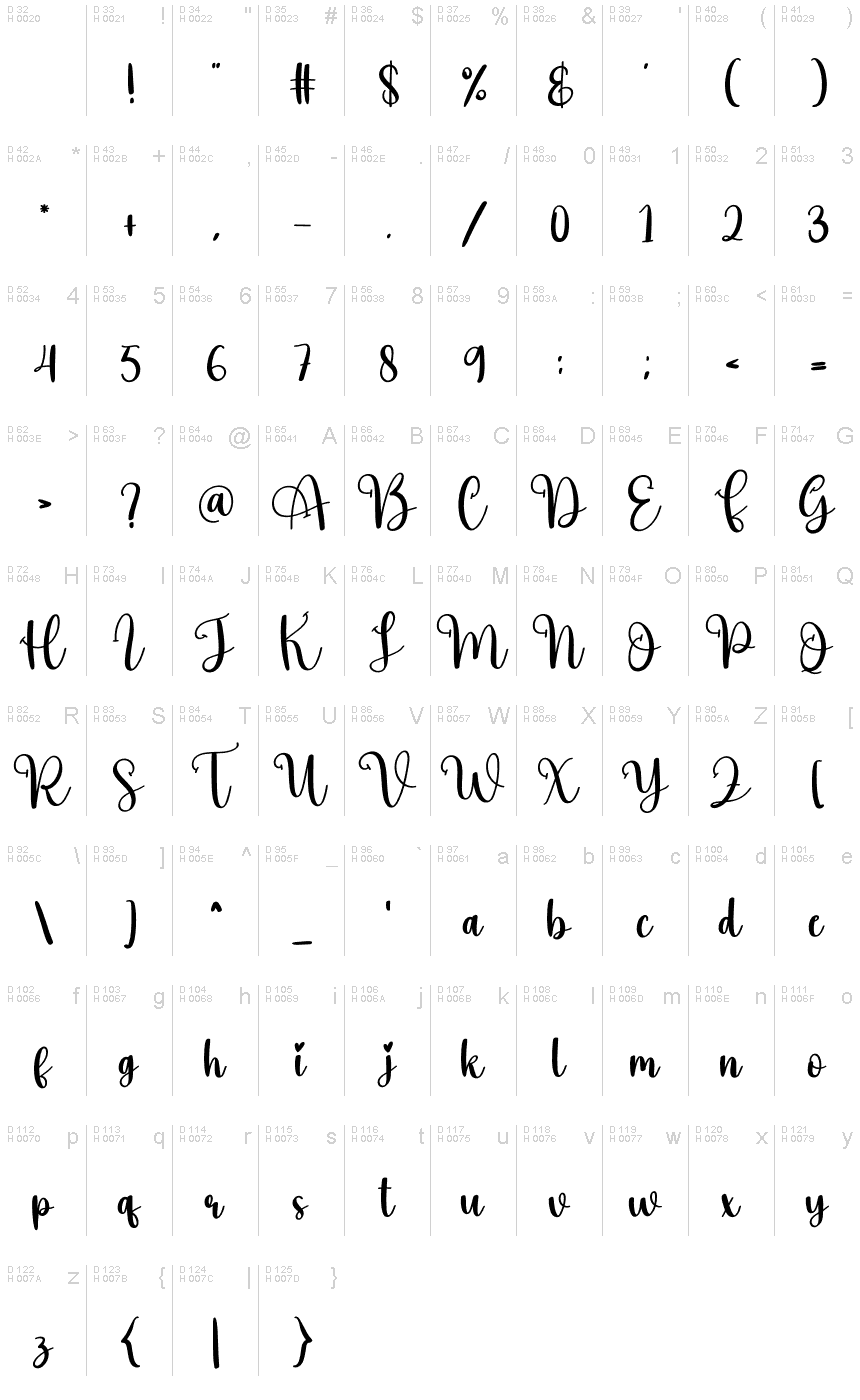
Active
The elegant calligraphy font, Active, designed by Scratchones, brings a touch of sophistication to any project.
Its graceful strokes and flowing curves make it perfect for wedding invitations, luxury branding, and high-end product packaging. With its versatile nature, Active font can also be used for magazine covers, fashion editorials, or even social media graphics seeking a refined and artistic look. Whether you’re aiming for class or creativity, Active font adds a distinctive flair that is sure to captivate your audience. Elevate your designs with this beautifully crafted calligraphy typeface.